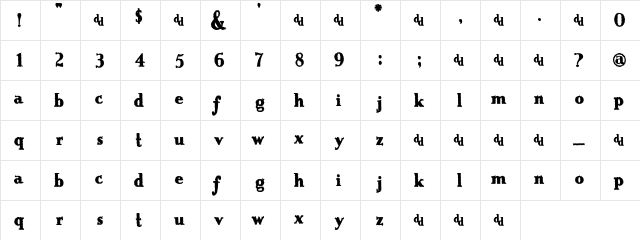
Ace Regular
Design Context for Ace Typeface
Ace offers clean, dependable letterforms without strong stylistic allegiance, making it a practical choice for designers who need flexibility.